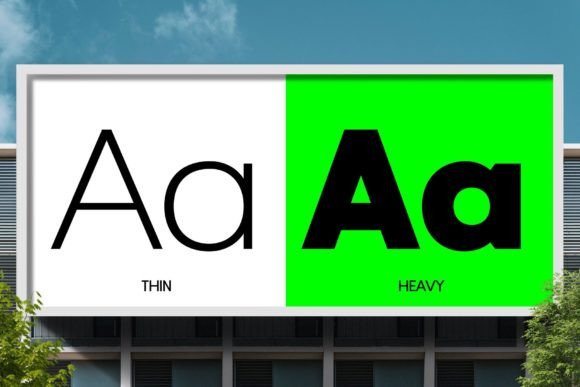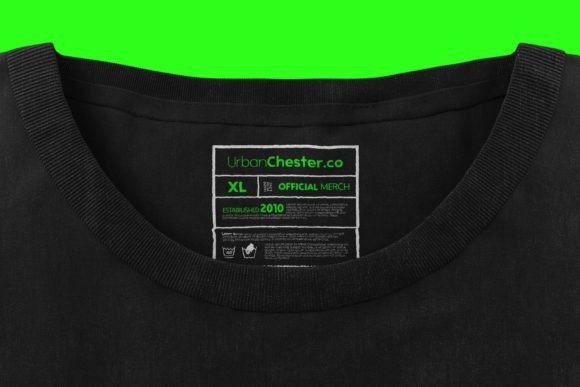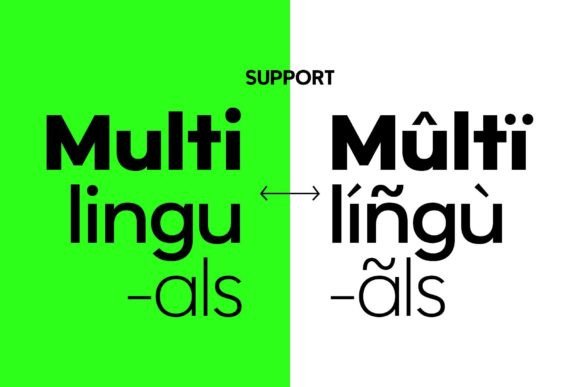
Introduction to Katide Font
Remember that moment when you finally found the perfect font to bring your creative project to life? It’s a feeling of pure elation, isn’t it? The way the letters flow, the balance of style and readability, it’s all just magic. For designers, this moment is a recurring dream, and it’s often the result of a long search for the perfect font.
That’s where the Katide Font comes in – a modern and fresh sans serif font that’s about to become your new go-to design resource. With its incredibly versatile style, this font fits a wide pool of designs, elevating them to the highest levels. Whether you’re working on a high-quality branding project or creating a stunning visual identity for a client, Katide Font is the perfect choice.
Key Features of Katide Font
- High-quality design resource ideal for creative projects, offering a unique and stylish touch.
- Features a clean and modern design, making it perfect for use in logos, branding, and other visual identity projects.
Honest Review: Katide Font
I recently stumbled upon the Katide Font and I must say, I was quite impressed. As a designer, I’m always on the lookout for high-quality design resources that can elevate my creative project.
The Katide Font is a beautiful, modern sans-serif font that’s perfect for a variety of applications. It’s available for free download, making it an excellent resource for designers working on a budget.
What works well: ✨ The font is highly customizable, making it easy to adjust the size, color, and spacing to fit your design needs. The transparent background also makes it easy to layer over other design elements. ✨ The font is also highly legible, making it perfect for body text or headings.
What doesn’t work well: ⚠️ The font is not as versatile as some other fonts I’ve worked with. It’s perfect for modern designs, but may not be the best choice for more traditional or vintage-style designs.
Overall, I’m quite impressed with the Katide Font. It’s a high-quality design resource that’s perfect for designers working on creative projects. The free download option makes it an excellent choice for designers on a budget.
- Legible and easy to read
The Katide Font is suitable for a variety of creative projects, including logos, graphics, and typography-based designs. Its high quality and versatility make it a great design resource for designers and non-designers alike.